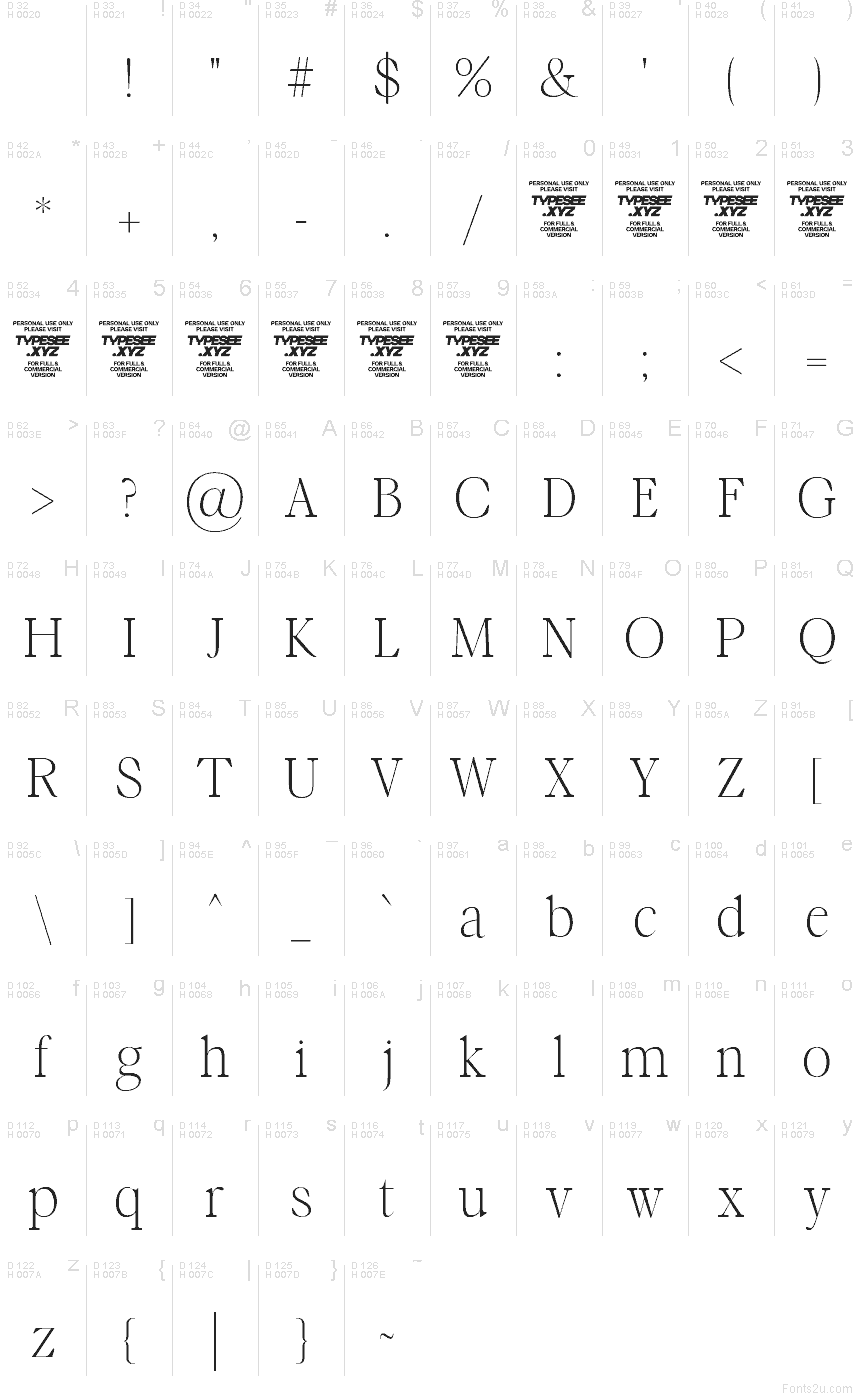
Upstair Serif by Typesee Type Foundry is a free high-contrast serif with a cool modern-classical poise. The letters pair hairline joins and long, delicate curves with firm vertical weight, so the font feels refined and a little architectural rather than soft or nostalgic.
It suits branding, magazine covers, fashion editorials, boutique packaging, and restaurant menus where that crisp contrast can carry the mood. As a free font, it also fits title cards, short headlines, and monograms, since the tall, graceful shapes and sharp serif finish give even a few letters a composed presence.